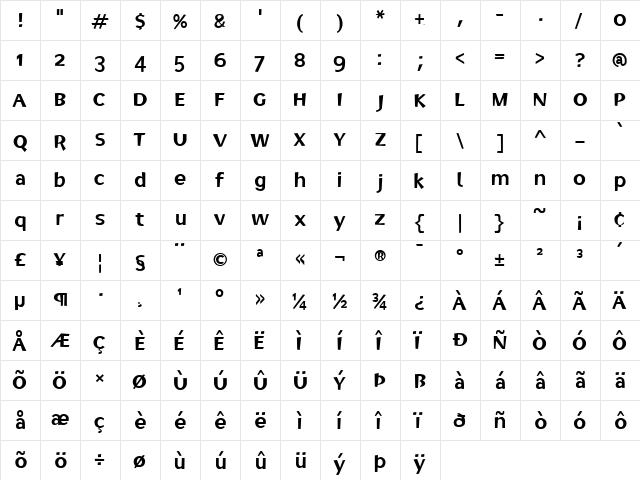
Elected Office Regular
Design Context for Elected Office Typeface
Elected Office is a composed and adaptable typeface that performs quietly and consistently across a wide range of design contexts.